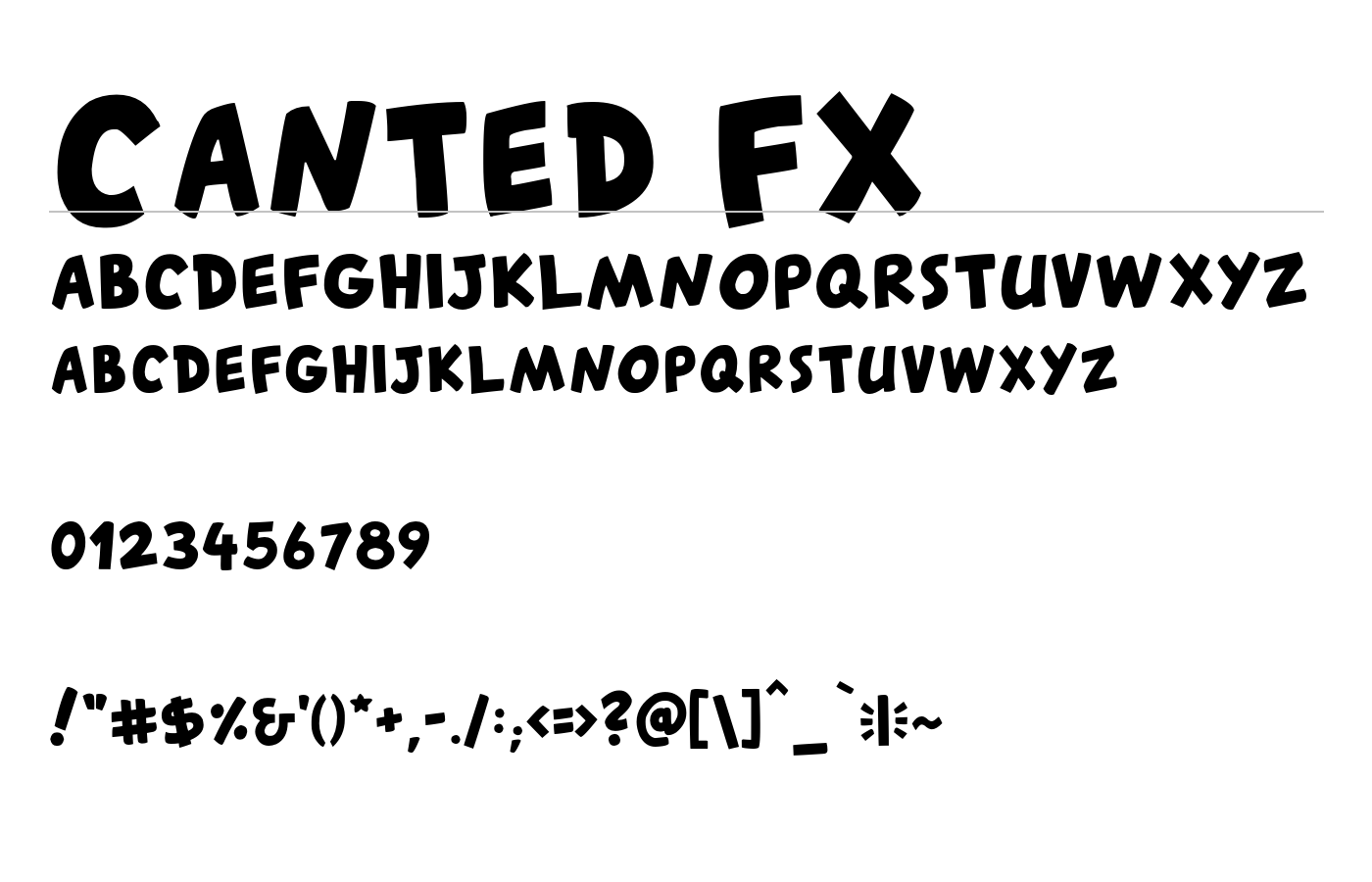
Canted FX is a bold, playful sans serif font with a slightly irregular, hand-drawn feel that adds character and energy. Its thick, rounded letterforms and varied angles give it a dynamic, fun personality, perfect for designs that want to stand out with a friendly and informal vibe. This font works well for headlines, posters, and creative branding where a lively and approachable tone is desired.
Canted FX Font
About Canted FX Font
| Font family | Canted FX Font |
| Designer | Nils Cordes |